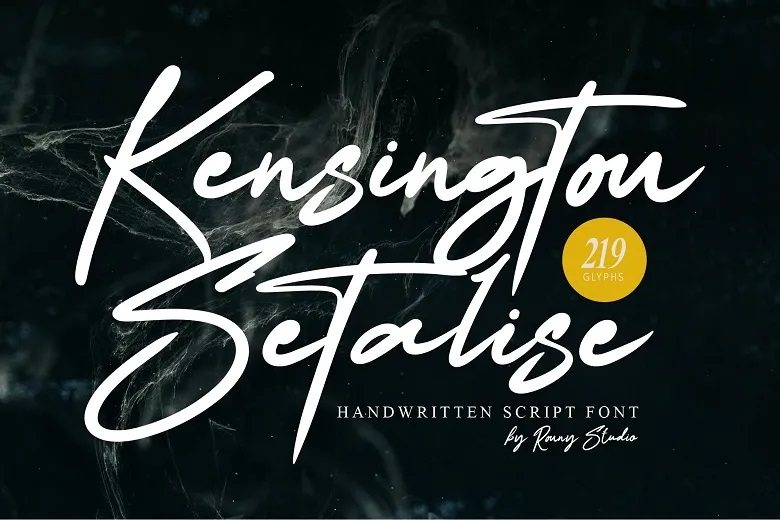
Kensington Setalise Font
Kensington Setalise is a modern script font that has simple, elegant and luxurious design suitable for branding, logos, movie titles, invitations and product packaging. With its sleek, refined looks it is perfect for designs that wish to convey a sense of the exclusive and the professional. Great for logos, social media, creatives and many more.
Kensington Setalise Handwritten Script Font